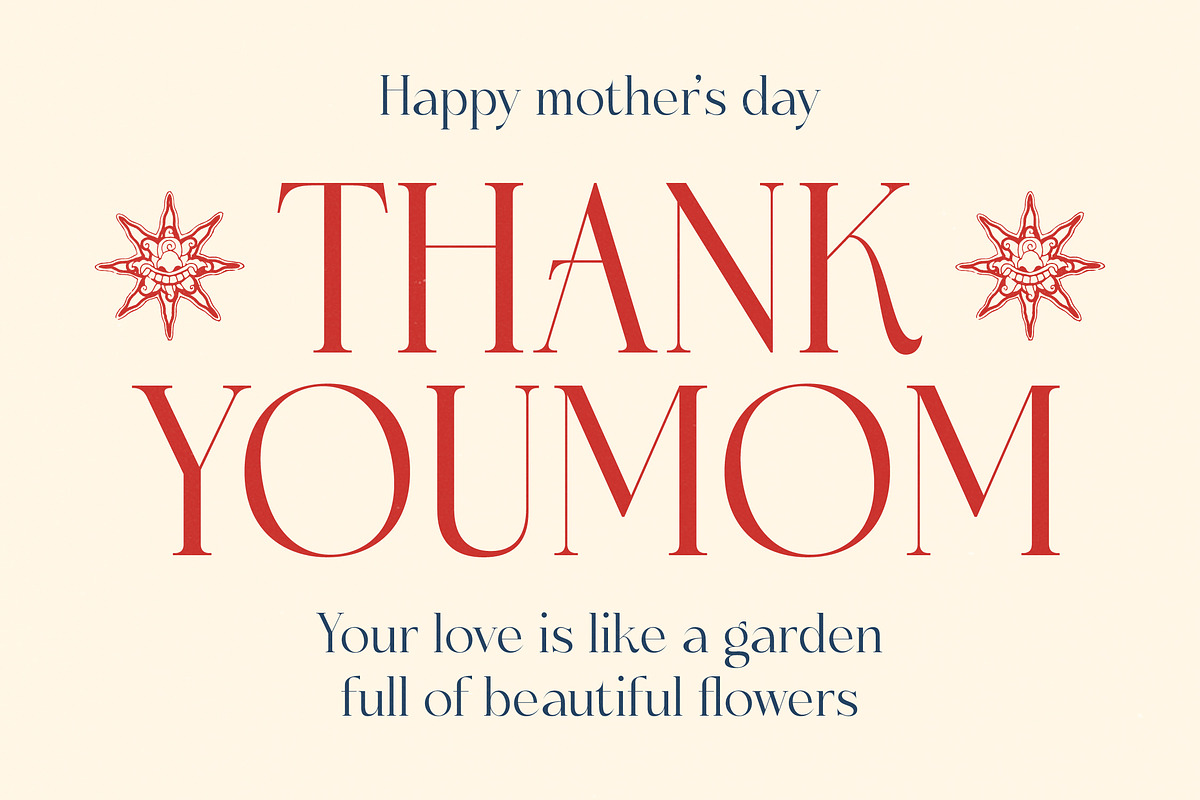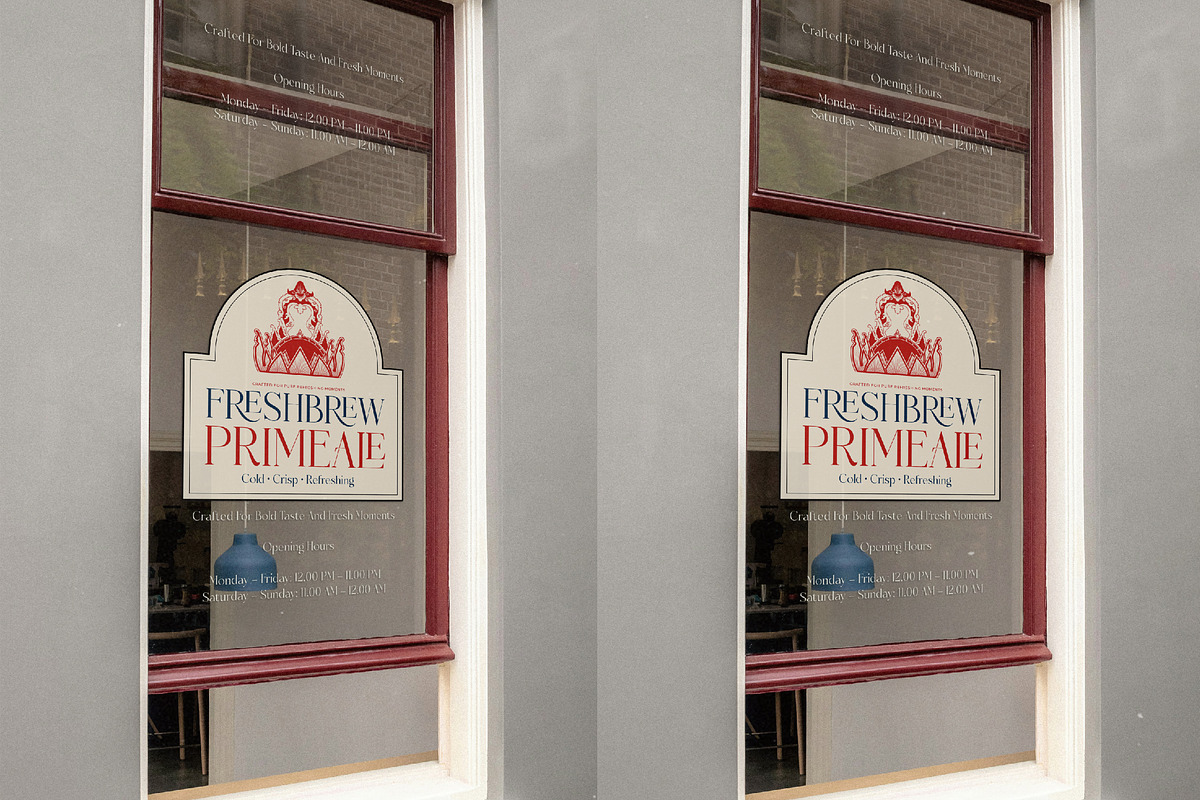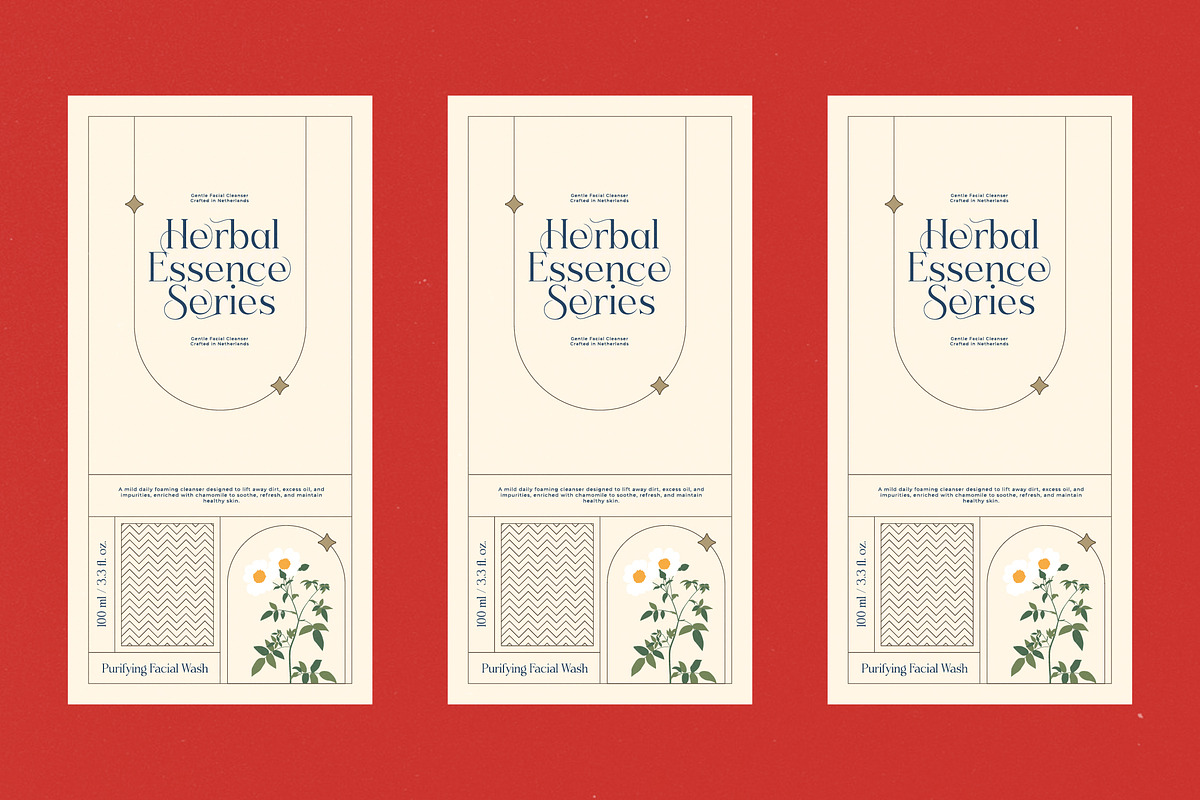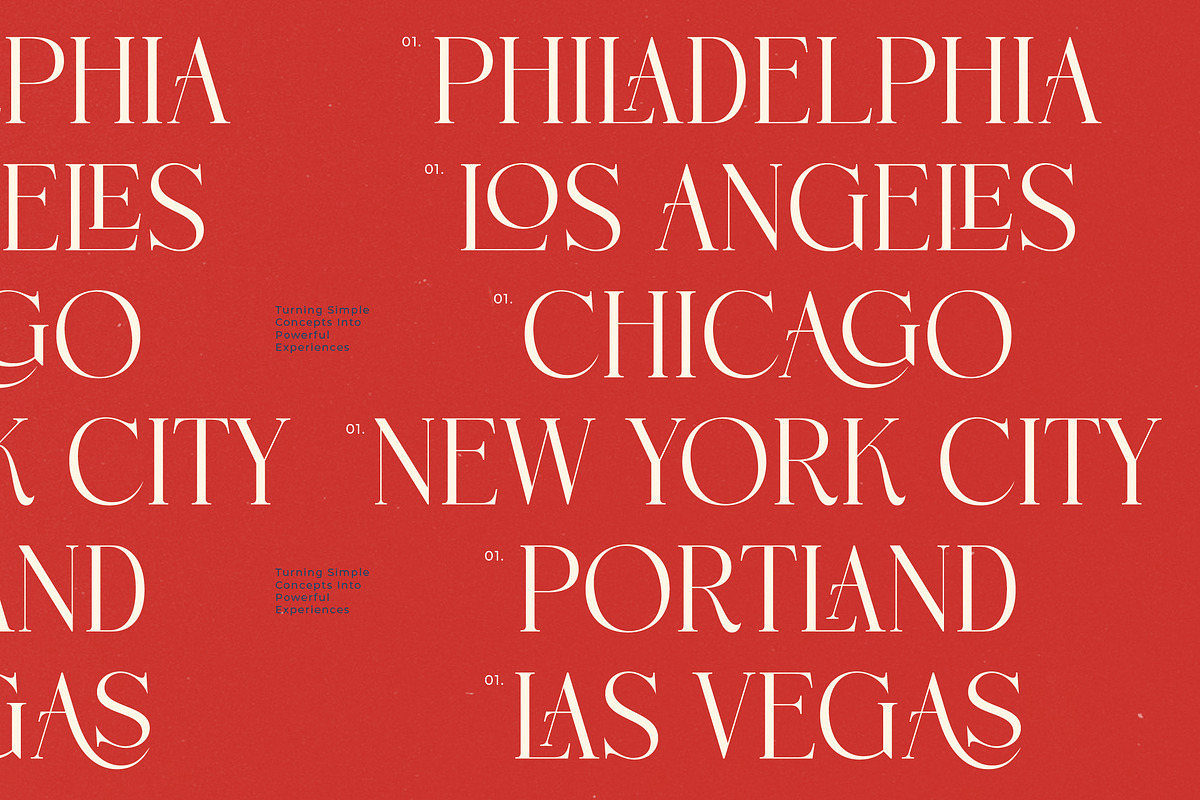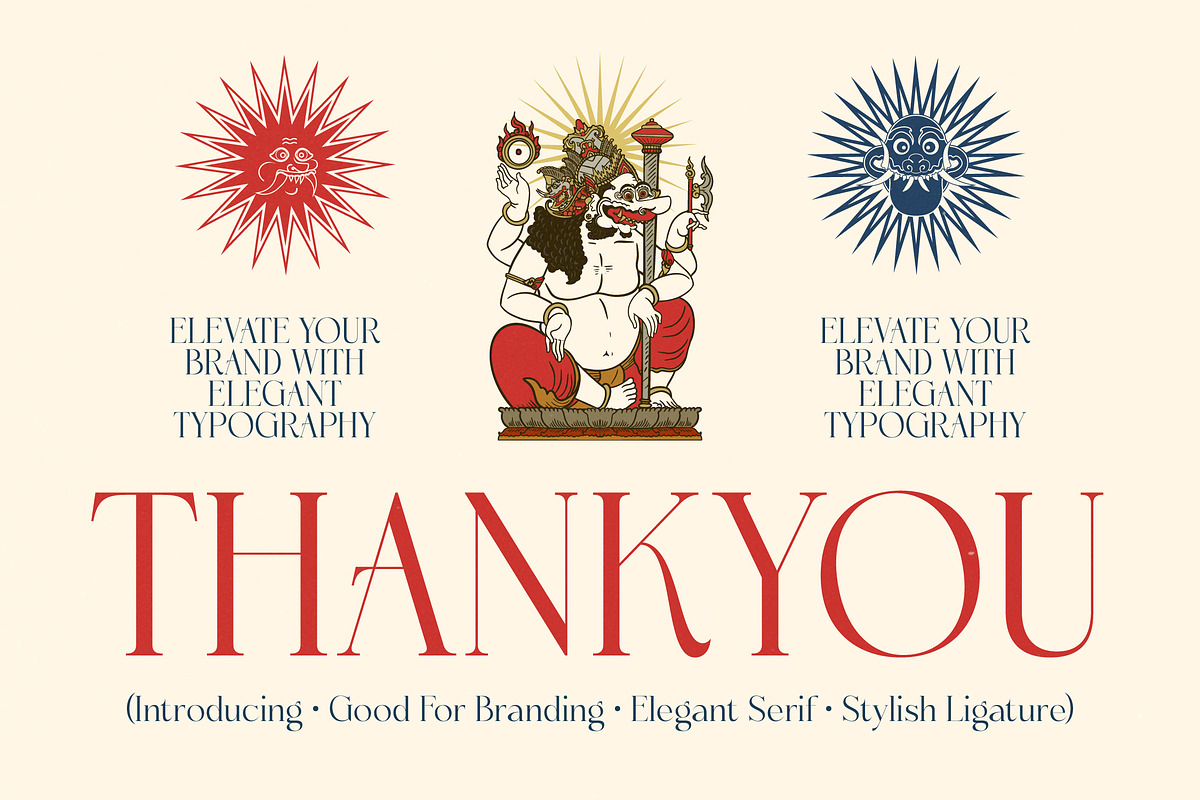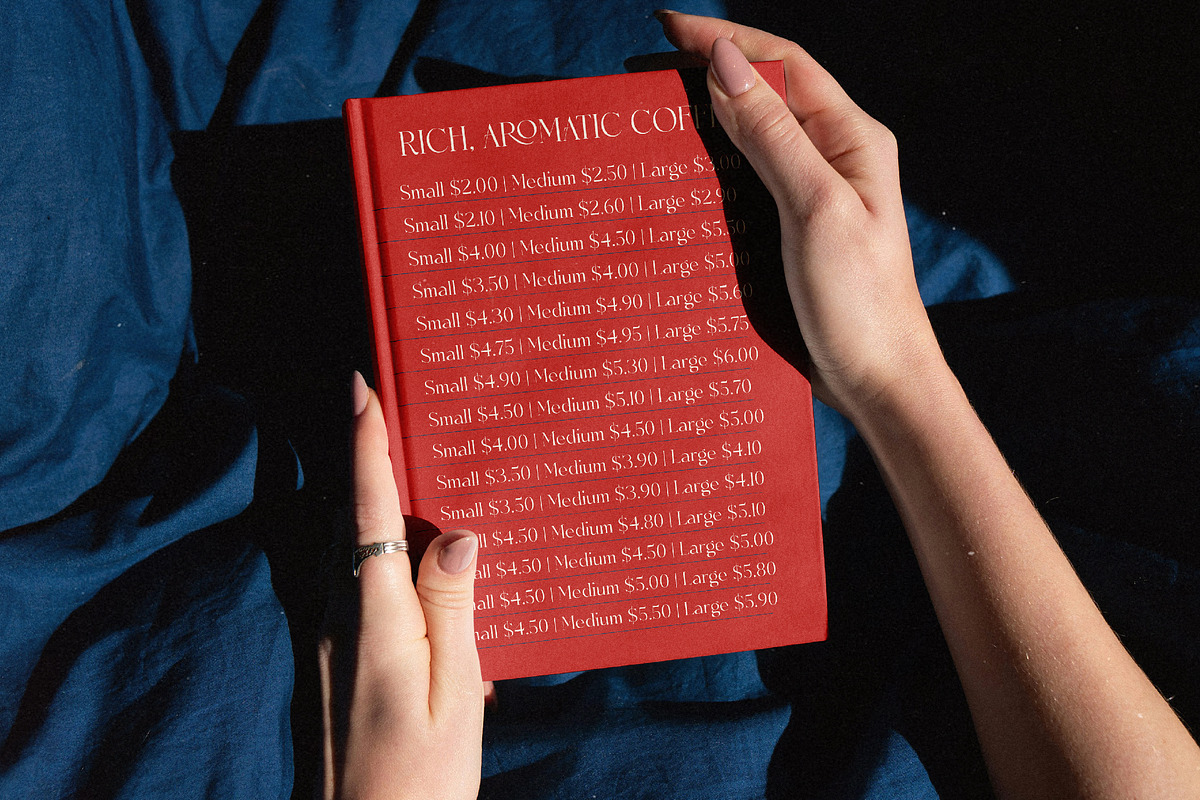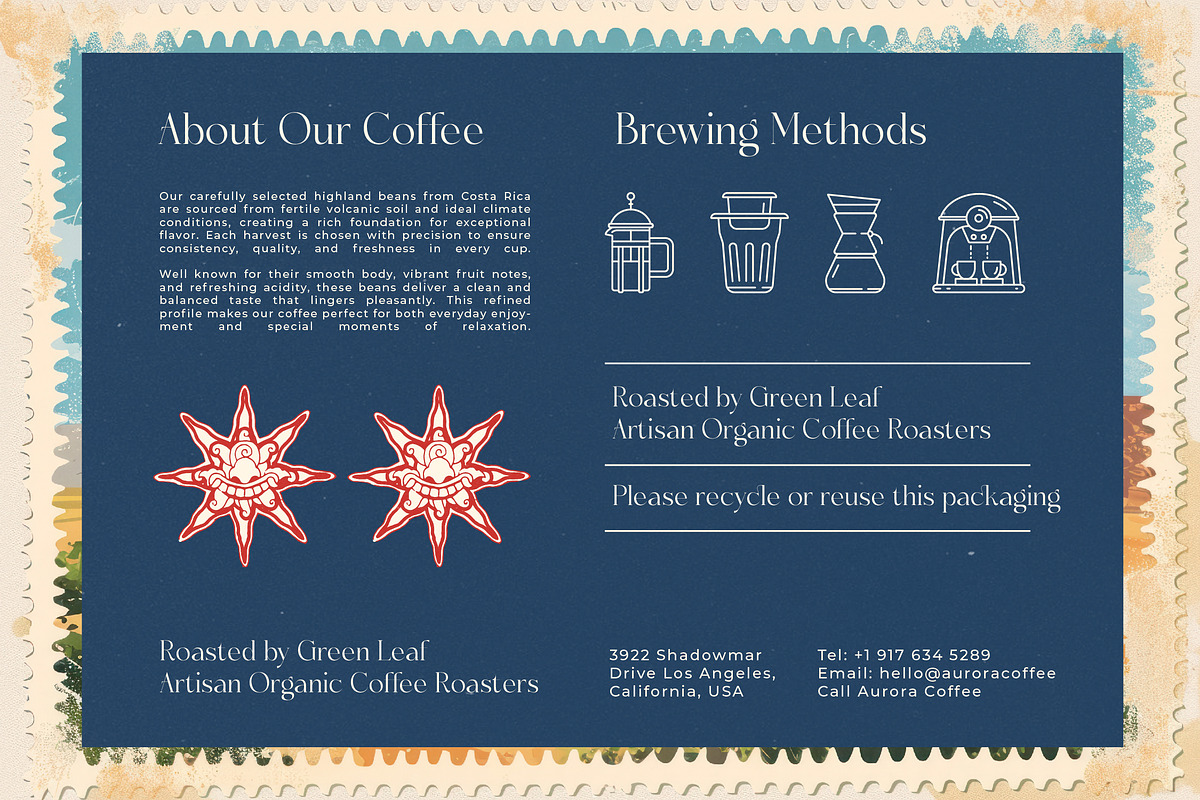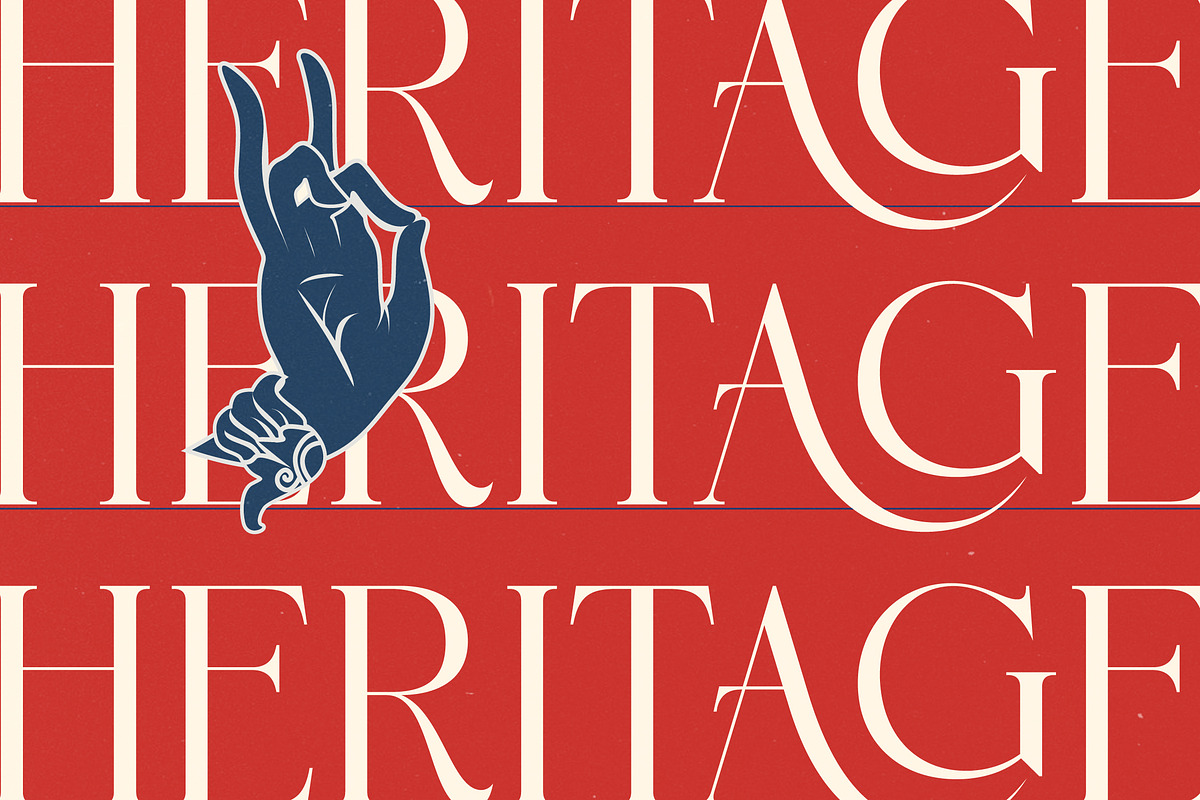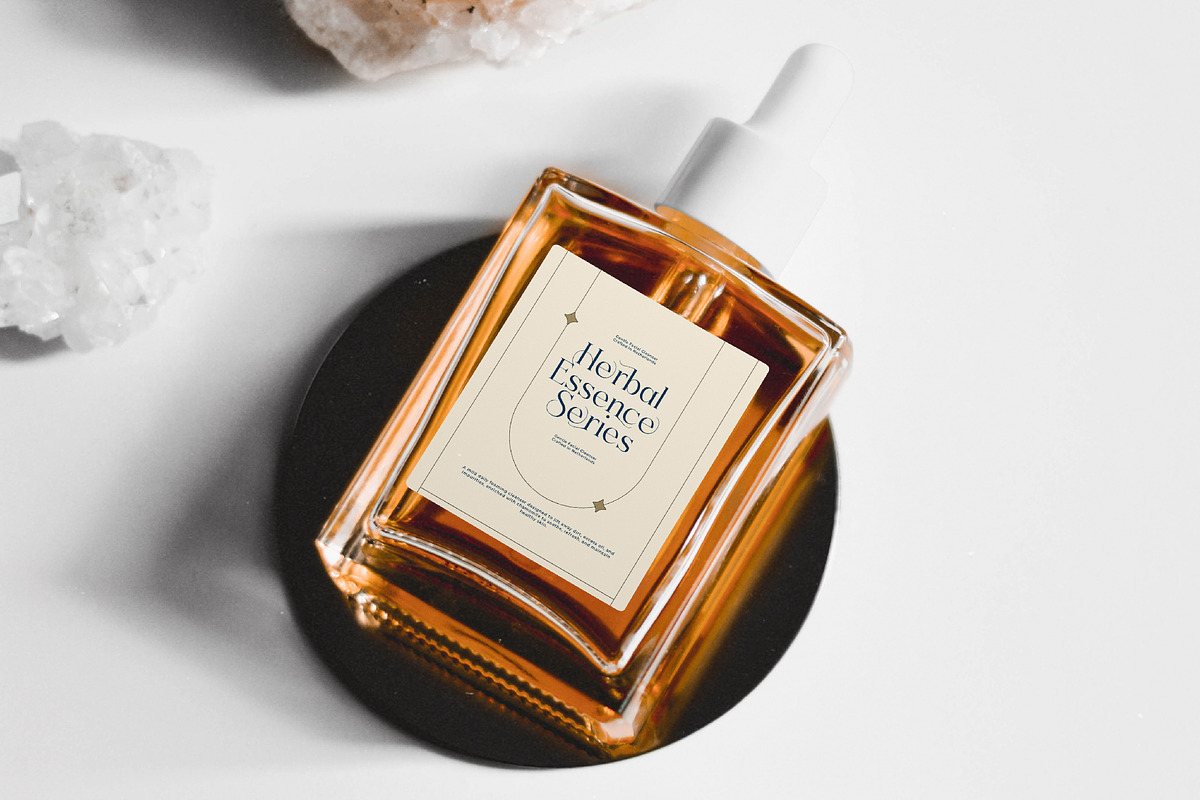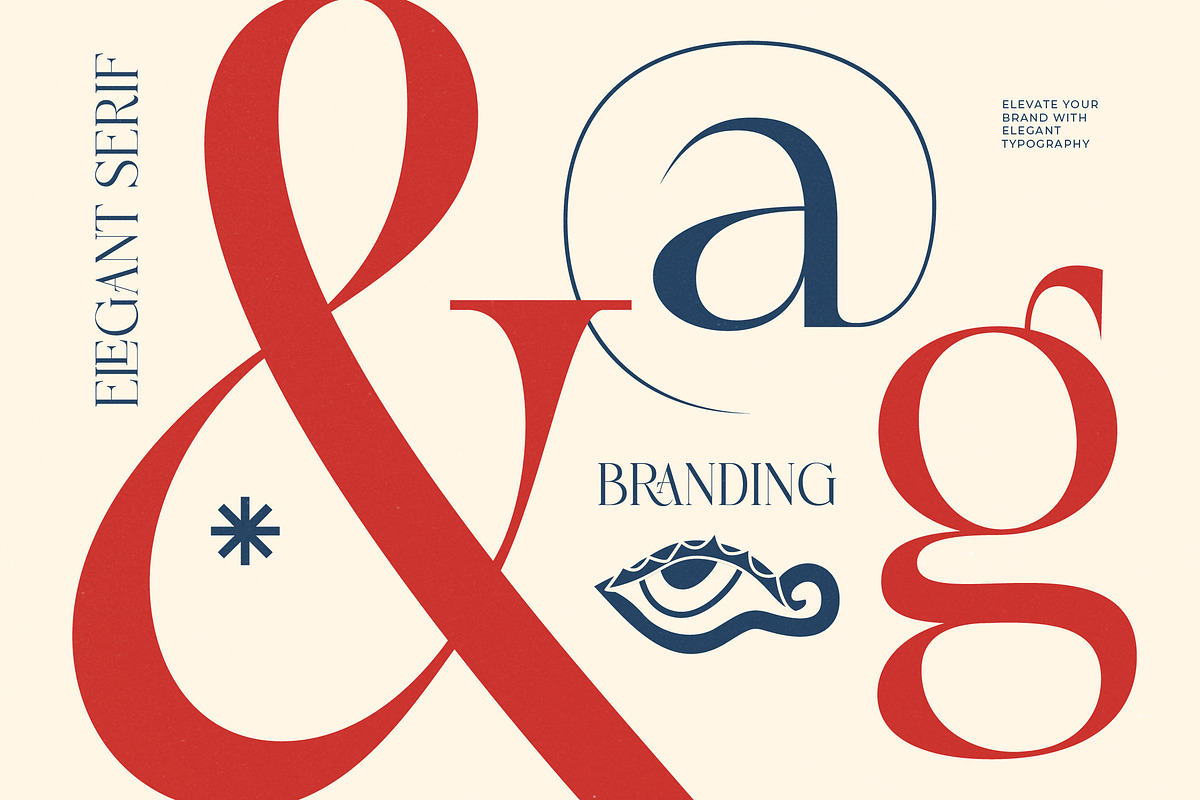
Roastirs Modern Elegant Serif
Elevate your creative vision with the timeless elegance of Roastirs, a typeface designed to command attention while maintaining a sophisticated grace. It is the perfect balance of heritage and contemporary flair for discerning designers who value artistic depth.
Inspired by the intricate details of ancient temple architecture and the flowing lines of classical mythology, this font captures a sense of divine harmony. The visual narrative woven into every curve suggests a deep connection to tradition reimagined for the modern era.
This modern serif display exudes an aura of exclusive refinement, making it an essential tool for creating luxury typography that stands out. Its high-contrast serif construction ensures a bold editorial font presence that delivers maximum branding impact across all digital and print media.
Aligning perfectly with the current modern serif trend, this typeface answers the demand for editorial display fonts that offer more than just legibility. It provides character-driven typography that satisfies the industry's craving for unique, expressive letterforms that tell a story.
Whether you are crafting a high-end logo design or developing a comprehensive branding identity, this font excels in editorial layouts and luxury packaging. It is equally at home in sophisticated wedding stationery or avant-garde fashion lookbooks and marketing campaigns.
Packed with a rich set of ligatures and creative alternates, this typeface allows for endless customization of every word. It includes elegant swashes and full multilingual support with international characters to ensure your message reaches a global audience with consistent style.
Numerals
Punctuations (OpenType Standard)
Accents (Multilingual Characters)
Ligatures and Alternative Style Stylistic Set